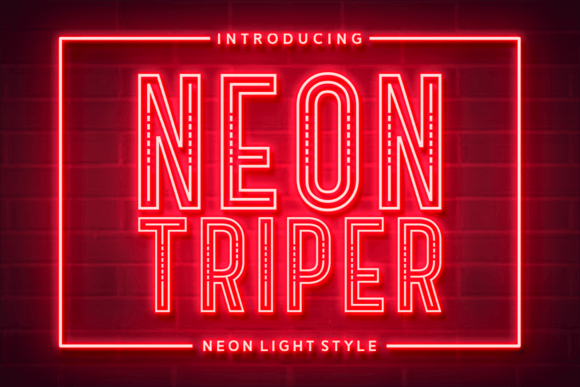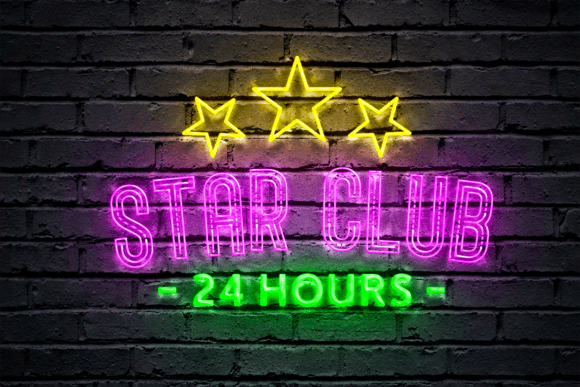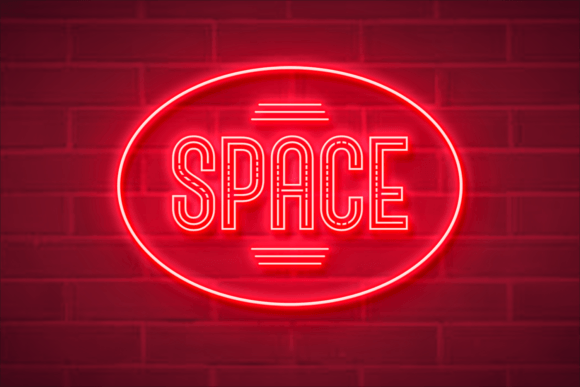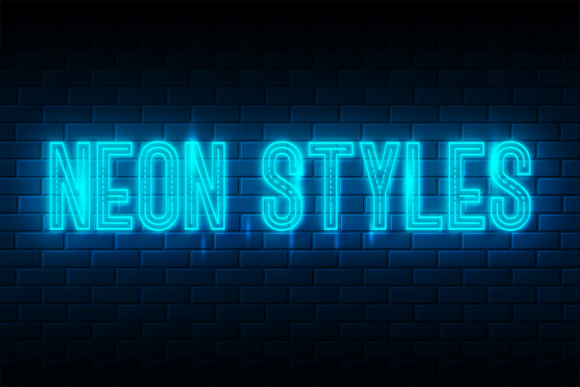
Neon Triper Font: A Bold Display Font for Eye-Catching Posters
About the Neon Triper Font
From logos to headlines, the Neon Triper Font is the perfect choice for making a lasting impression. Neon Triper is a decorative font featuring bold and bright neon letters, perfect for adding a futuristic and eye-catching touch to your designs. Its sleek and modern style makes it perfect for advertisements, posters, and digital media. The font’s unique glow effect will make your designs pop and stand out from the crowd.
Neon Triper excels in headlines, short slogans, and impactful branding elements where its bold presence commands attention. It’s ideal for posters, social media graphics, and short-form digital advertising. However, its decorative nature makes it unsuitable for body text or UI elements requiring high readability. Long paragraphs set in Neon Triper will be visually overwhelming and difficult to read.
This font’s core personality is bold and futuristic. It projects a vibrant, energetic, and modern feel, perfect for brands targeting a younger demographic or those associated with technology, entertainment, or nightlife.
Pairing Neon Triper with a clean sans-serif like Open Sans for body copy or a geometric sans-serif like Futura for supporting text creates a balanced contrast, allowing the headline font to shine while ensuring readability. For a more playful approach, consider pairing it with a rounded sans-serif.
Neon Triper Font Usage Examples
Neon Triper Font Example